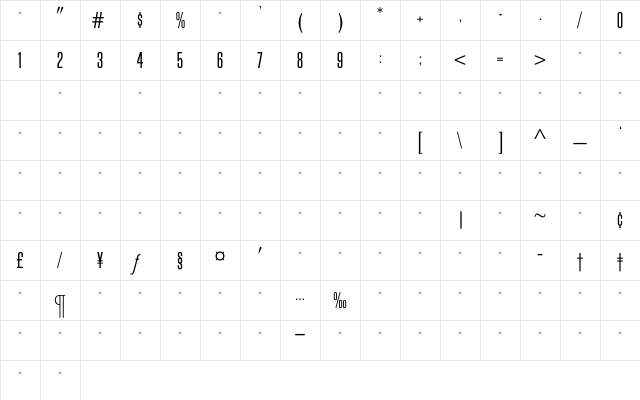
BlockGothicLightExtraCondTab takes a clean, functional approach - its unadorned letterforms prioritise legibility and work reliably across screen and print environments. Its slender proportions lend an understated elegance to any composition. Its narrow stance lets it pack a punch even in space-constrained designs.
Font Pairing: Pair BlockGothicLightExtraCondTab with a medium or bold serif for headlines - the weight contrast creates an elegant, high-end feel.
Pro Tip: Use BlockGothicLightExtraCondTab tightly set in headlines and banners - its condensed proportions make it ideal for maximum impact in minimum horizontal space.